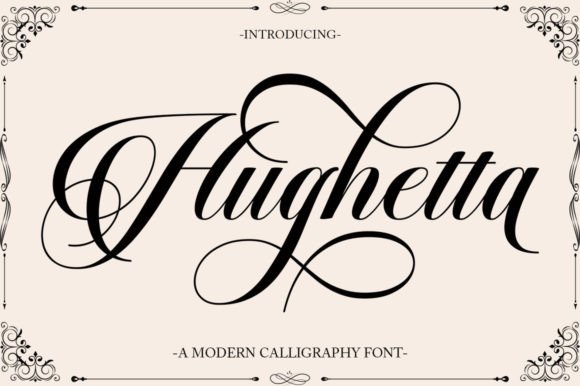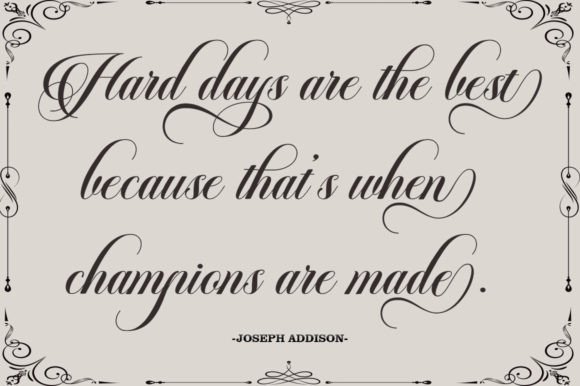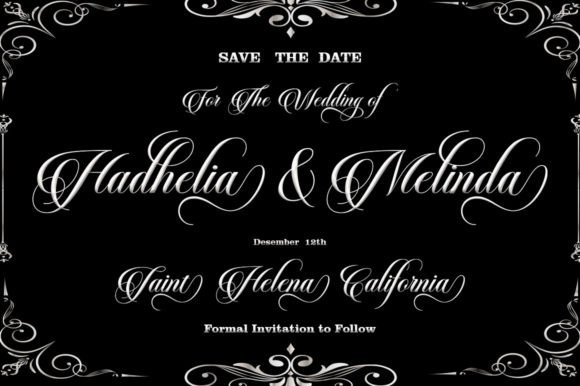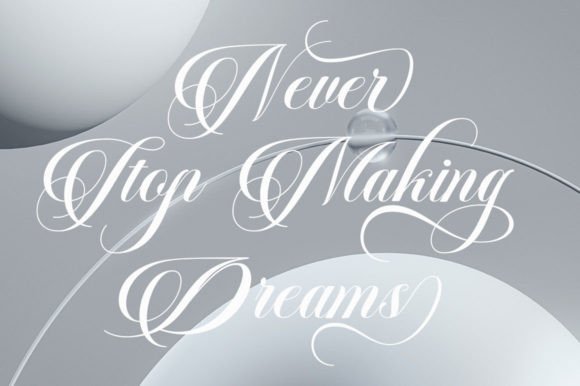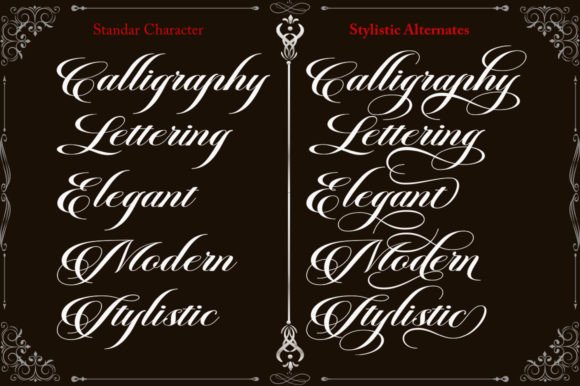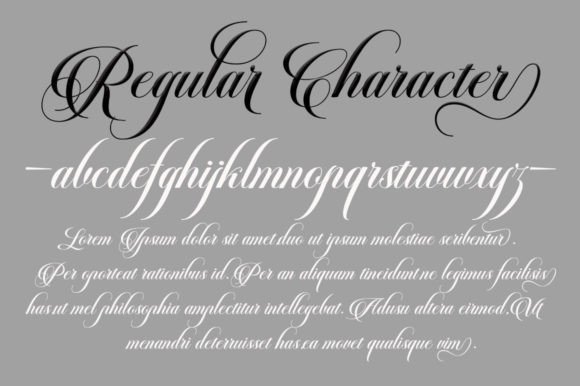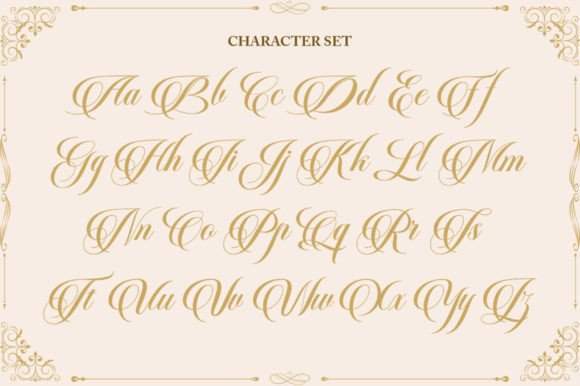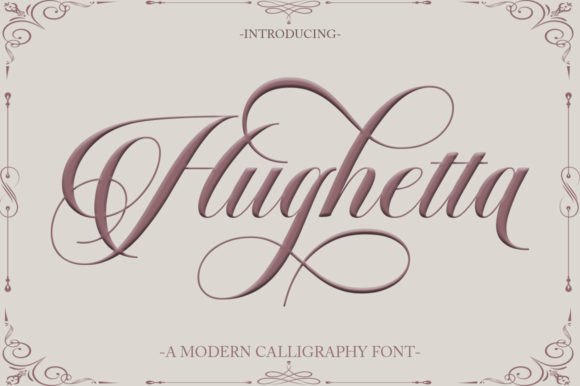
Hughetta Font
About Hughetta Font
Hughetta is the font of choice for expressing sentiments beyond words. Crafted with meticulous detail, this typeface conveys stylish elegance and exudes a classic ornamental copper script vibe. The character transformation in Hughetta is remarkably beautiful, making it an ideal choice for a range of applications.
One of the standout features of Hughetta is its provision of alternative variants for most fonts, binders, and numerous calligraphy tips. This versatility makes it perfect for creating elegant labels, high-end packaging, stationery, and compositions for select brands. It’s well-suited for crafting beautiful titles, paragraphs, fonts, and short text, whether meant to be read with the eyes or whispered into someone’s ear.
Hughetta’s classic ornamental copper script style adds a touch of sophistication, making it an excellent choice for projects that require a blend of timeless elegance and modern aesthetics. Its ability to convey a sense of beauty and refinement makes it suitable for a variety of design contexts.
The font’s PUA encoding ensures easy access to a plethora of amazing glyphs and ligatures. This feature enhances the font’s flexibility, allowing you to explore and incorporate various design elements seamlessly.
In conclusion, Hughetta is not just a font; it’s a creative tool meticulously designed to bring stylish elegance and classic ornamental beauty to your designs. Whether used for branding, packaging, or other creative projects, this font ensures that your creations stand out with sophistication and timeless charm.